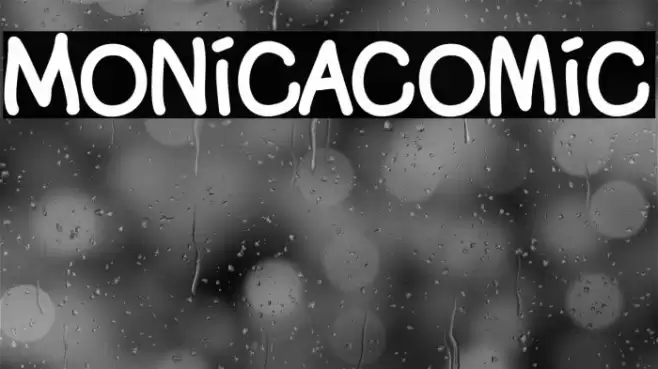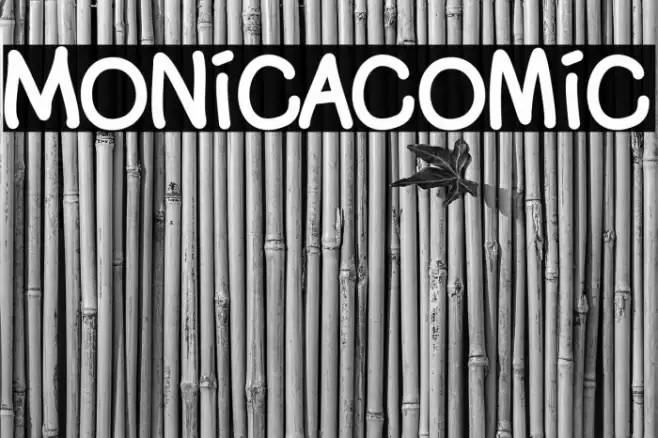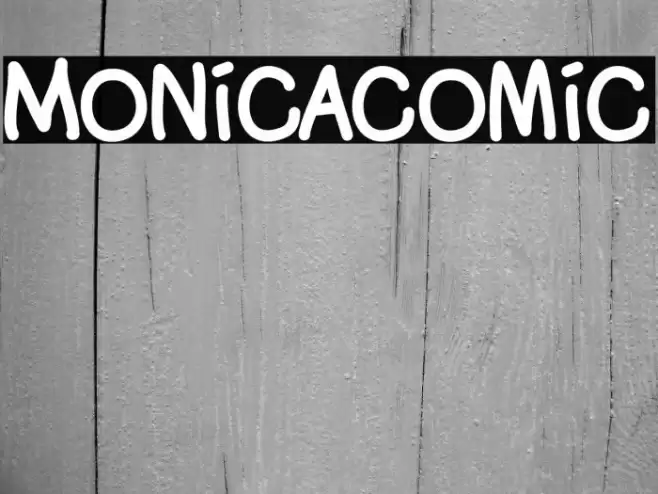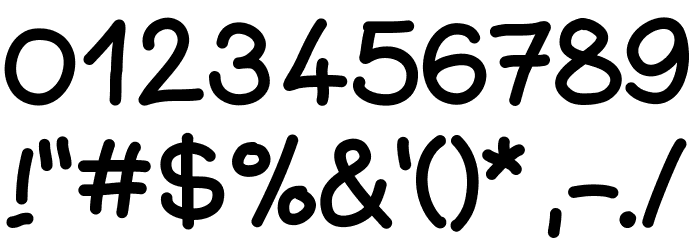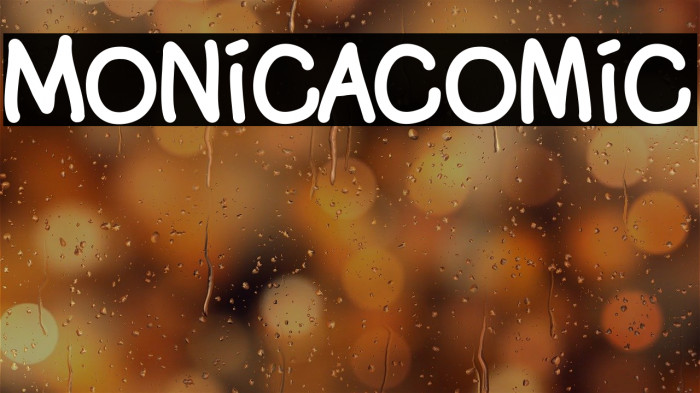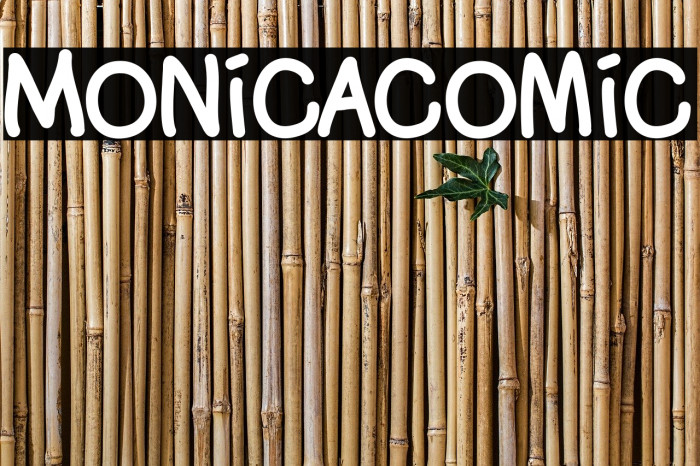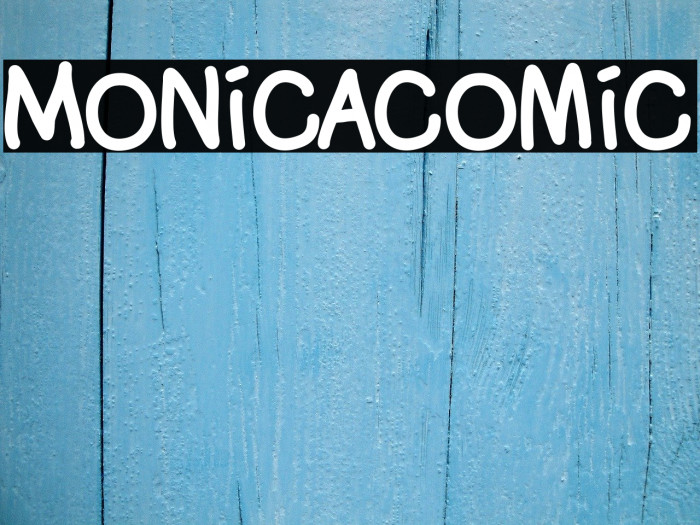
Monicacomic Font
Monicacomic Description
This playful and whimsical font features rounded, bold characters with a hand-drawn appearance. The letters have a casual and informal style, making them ideal for projects that require a fun and approachable look. The uppercase and lowercase letters maintain a consistent style, with smooth curves and a slightly uneven baseline that adds to the charm. The numbers and special characters are designed to match the playful aesthetic, ensuring a cohesive look across all text elements. The font's thick strokes and rounded edges give it a friendly and inviting feel, perfect for creative and lighthearted applications.
A playful, hand-drawn font with rounded, bold characters and a whimsical style from Comic fonts.
- Proposed Projects: Ideal for children's books, comic strips, playful branding, and casual invitations.
- Overall Style: Playful